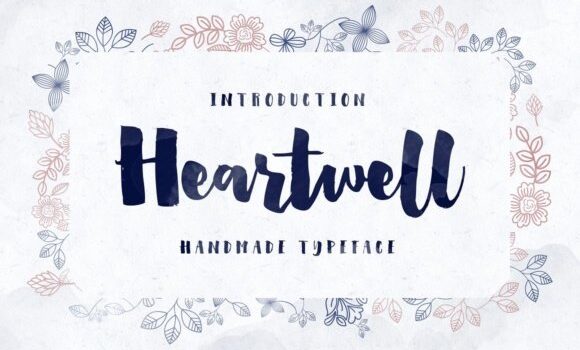
Heartwell Font – Free Download Introduction to Heartwell Font Heartwell is a gorgeous modern calligraphy font, inspired by the nuances that make hand-lettering beautiful. 📸 Preview Gallery 3 images 📌 Product Name Heartwell Font 👤 Author flavortype 📂 Category Explore